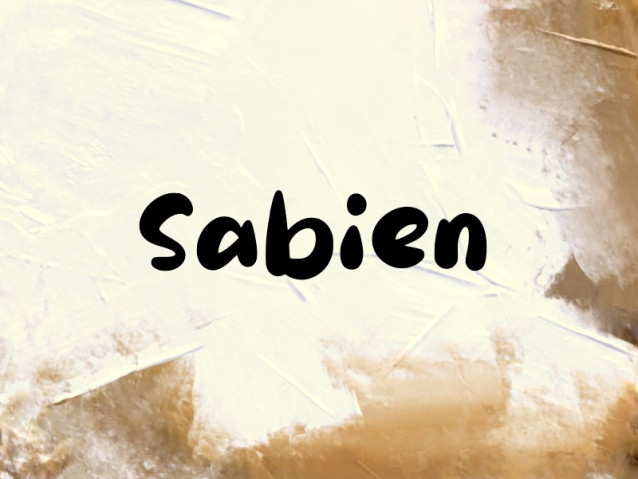
Sabien Font
Sabien Font is a simple and modern display font suitable for quotes, logos, headings, titles, and many more. Use it on any of your creative projects, and your designs will become outstanding!